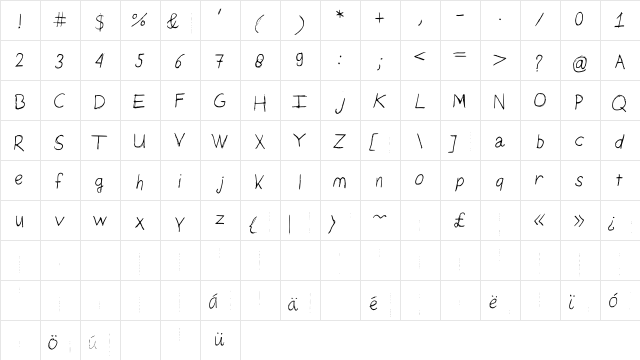
JolandasCreativeStoryFont Medium
JolandasCreativeStoryFont is a composed and adaptable typeface that performs quietly and consistently across a wide range of design contexts.
Pro Tip: Use JolandasCreativeStoryFont in both headline and body roles to test its range before committing to a single application.